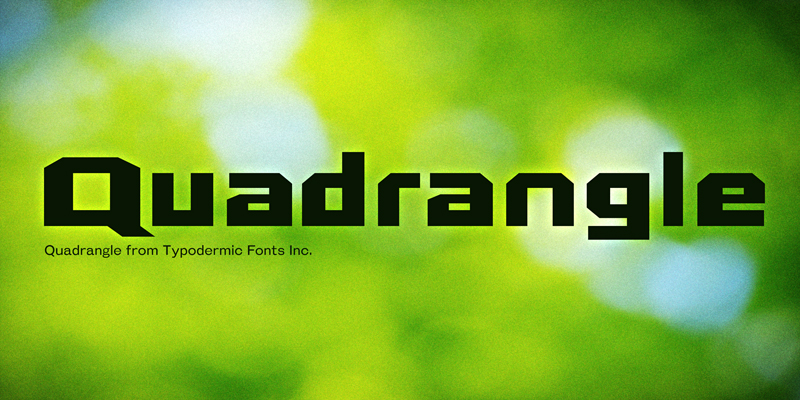
Font name: | Quadrangle |
Quadrangle is a sharp-angled, robotlike headline screecher. This font includes a license that allows free commercial use: sometimes referred to as a desktop license. This allows you to install the font on a computer and use it to create posters, web graphics, game graphics, t-shirts, videos, signs, logos and more. Read the license agreement for details. If you'd like to embed this font in an app, ebook, on the web or anything that's not covered by the desktop license agreement, visit the link below. You'll find distributors who offer different types of licenses or you can contact me for help. http://typodermicfonts.com/quadrangle/ |